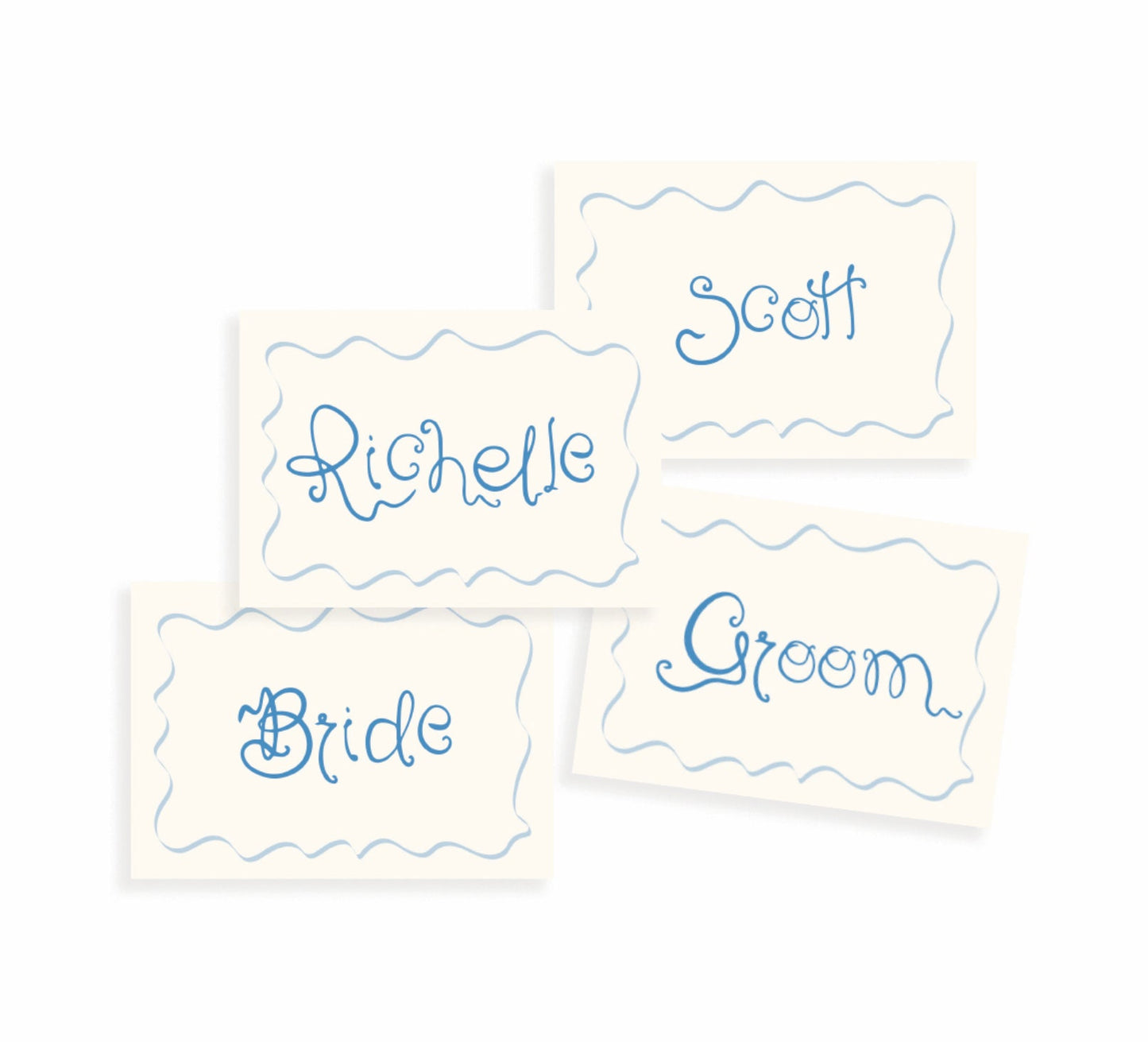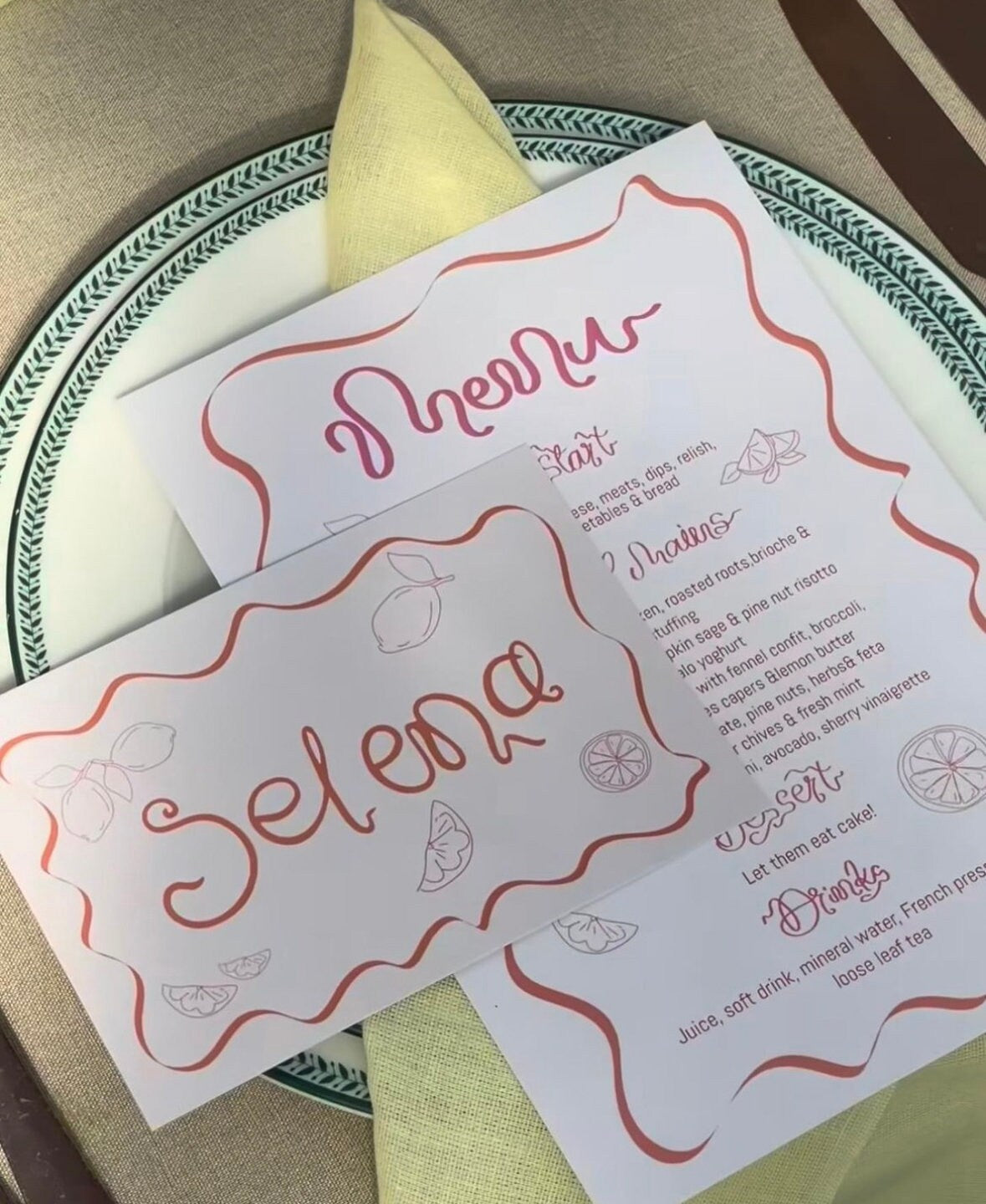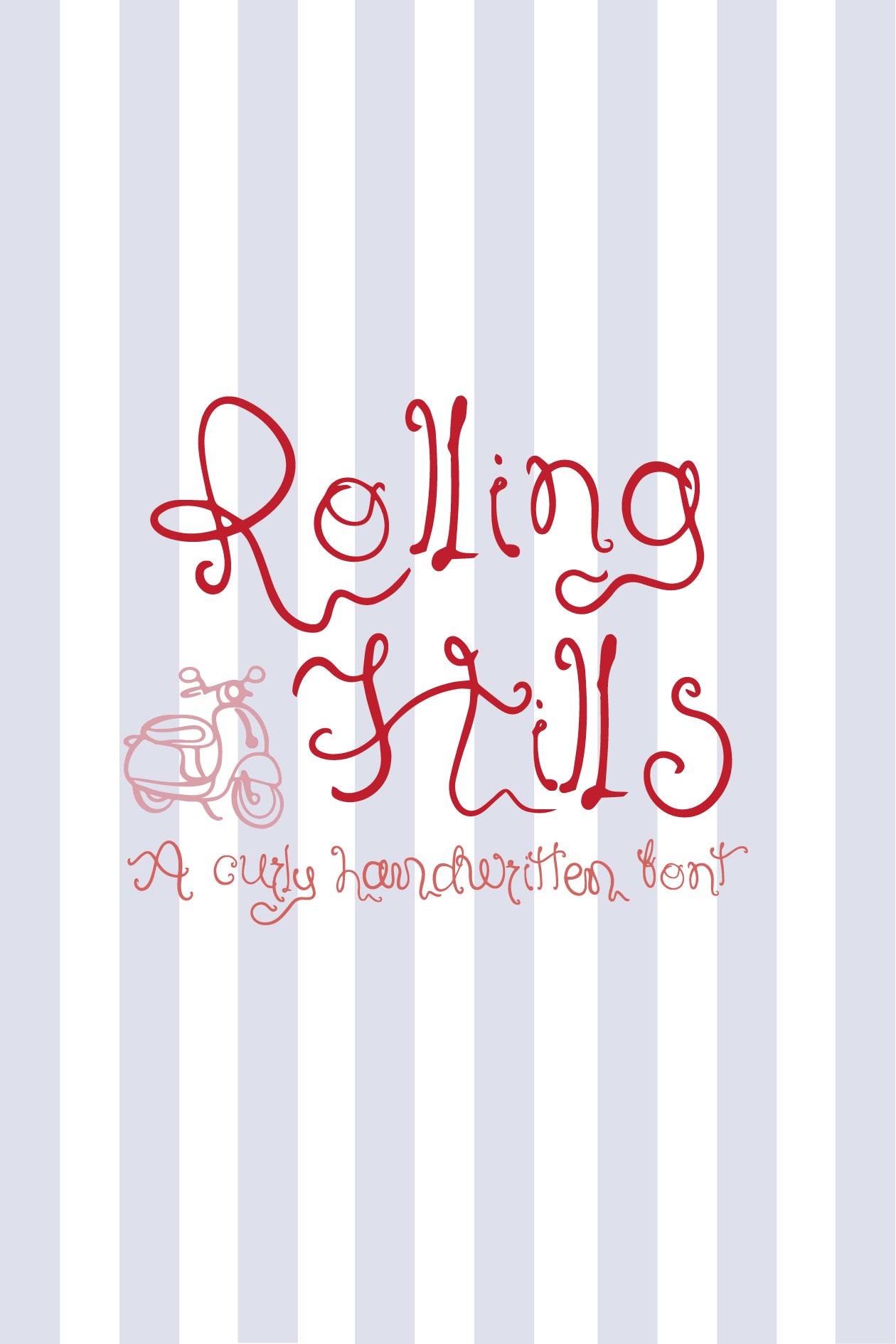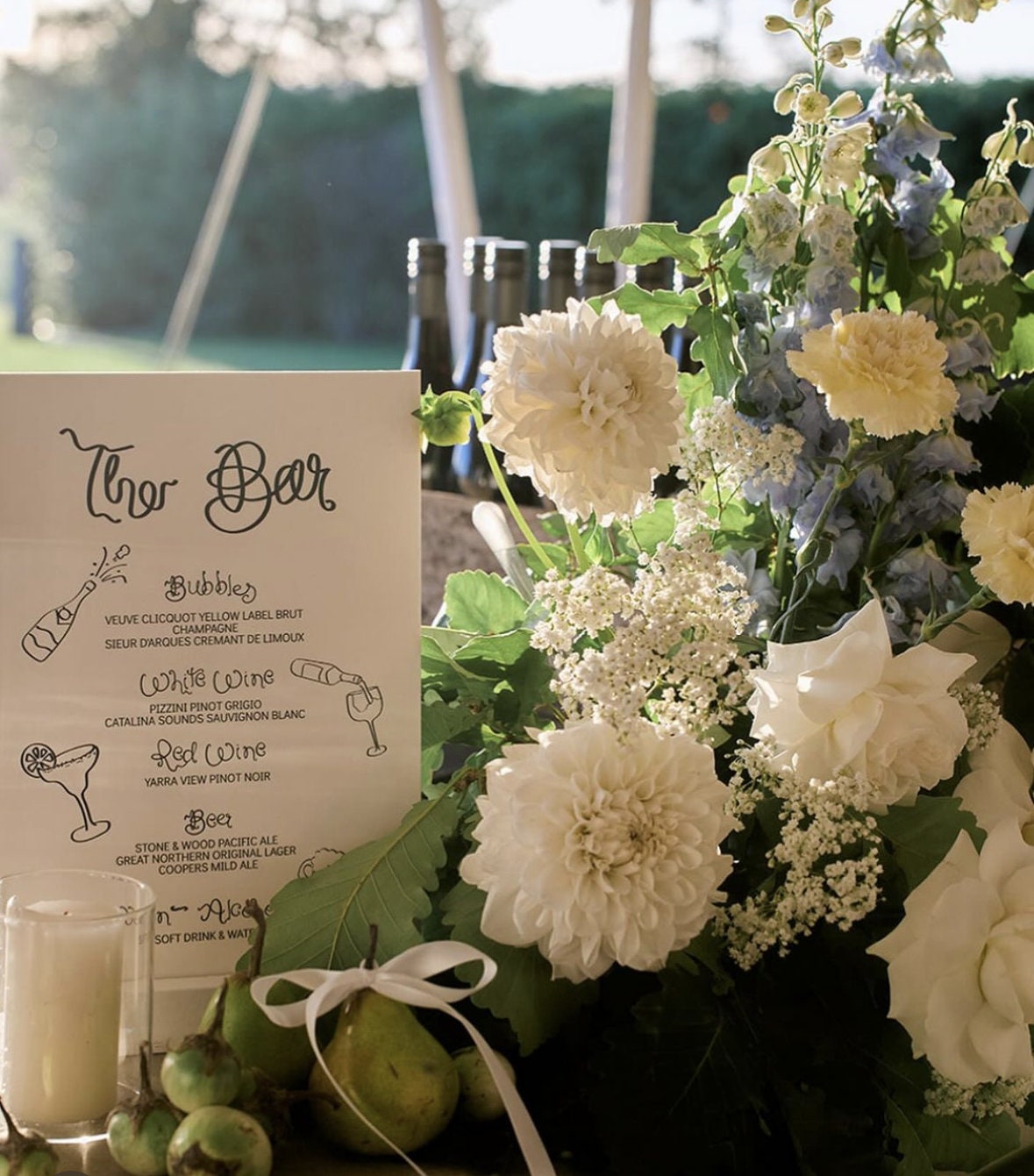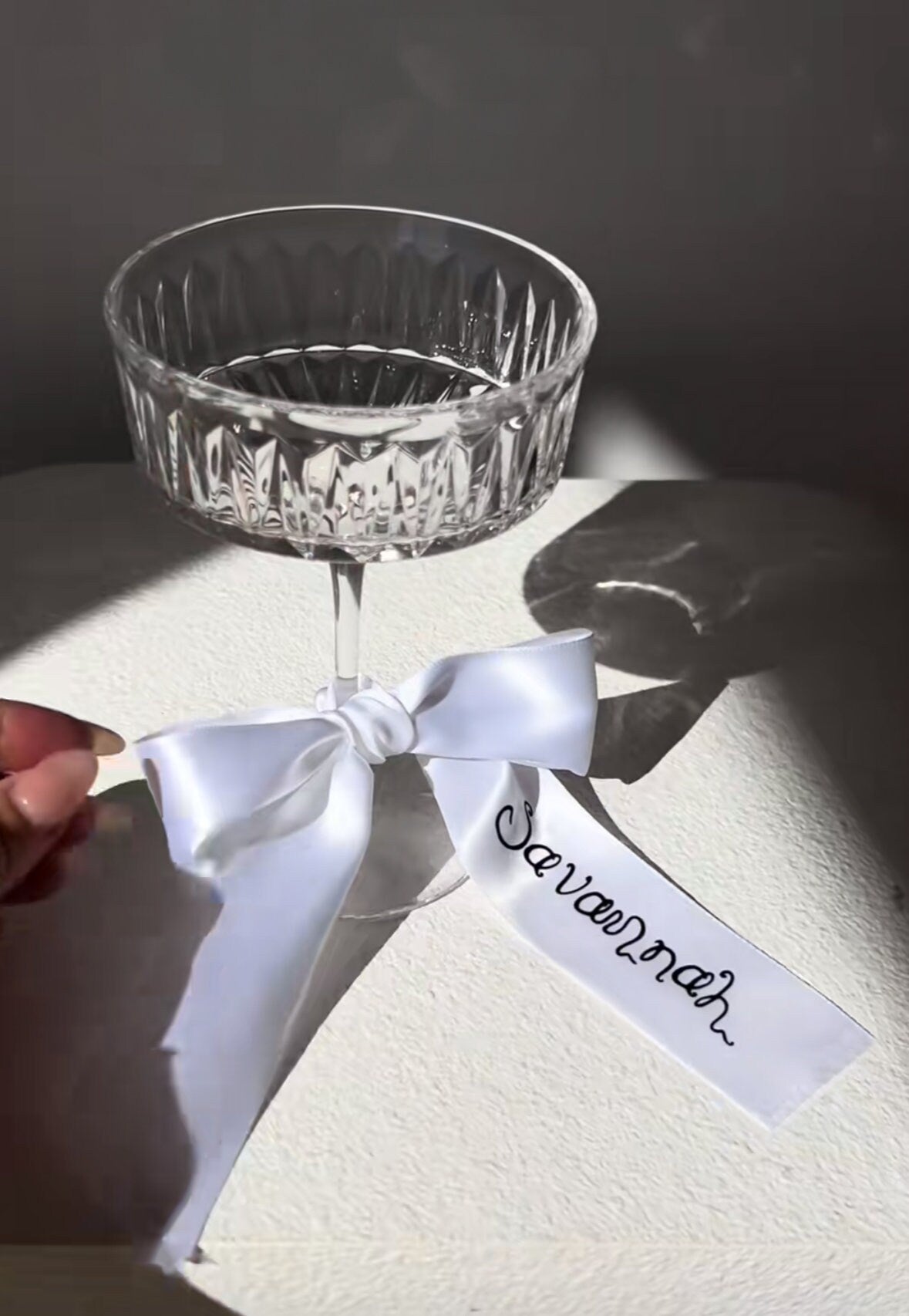
Rolling Hills Handwritten Font
Rolling Hills is a modern handwritten font, perfect for stationery and signage for weddings, engagement parties, bridal showers, hens parties, baby showers and so much more. This font utilises OpenType features. Before purchasing please make sure that you can access additional font characters (such as swashes, letter combinations, alternates) in the program/software you are using. Please note that not all characters have alternates.